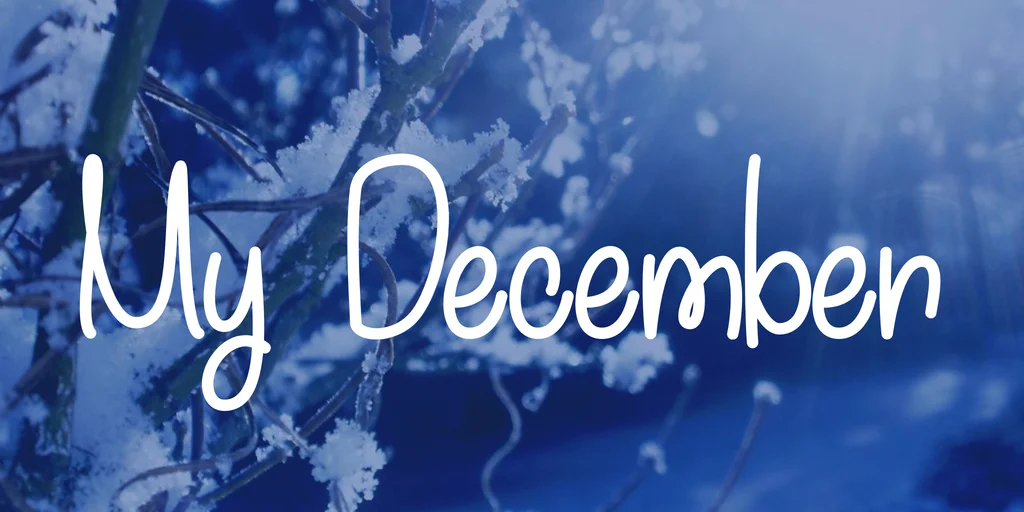
My December Font
My December Font is perfect for winter-themed branding, holiday greeting cards, seasonal marketing campaigns, Christmas packaging, festive event invitations, cozy cafe branding, winter fashion labels, seasonal social media graphics, holiday promotional materials, warm product packaging, festive website headers, and any design project requiring a nostalgic and heartwarming winter aesthetic.
What makes My December Font exciting is its warm nostalgic character that captures the magical essence of winter holidays and cherished seasonal memories. The font's inviting letterforms evoke feelings of comfort, celebration, and togetherness, making it ideal for brands seeking to create emotional connections during festive seasons. Its charming personality resonates with audiences longing for tradition and warmth, while its versatile styling allows designers to create memorable content that celebrates the joy and coziness of winter months.
The My December Font family typically includes uppercase and lowercase characters, numerals, punctuation marks, and seasonal decorative elements that enhance its festive appeal.